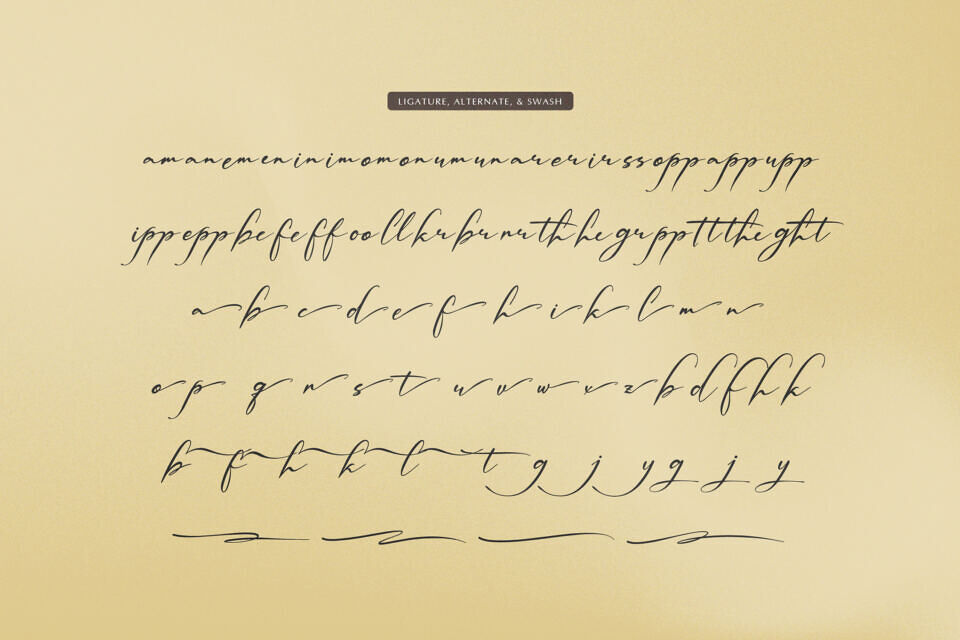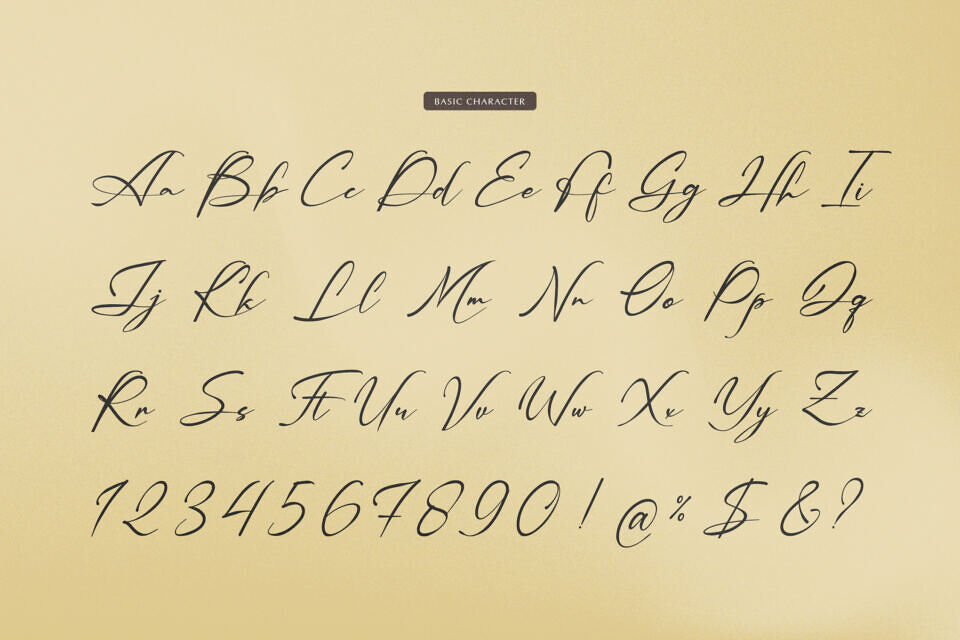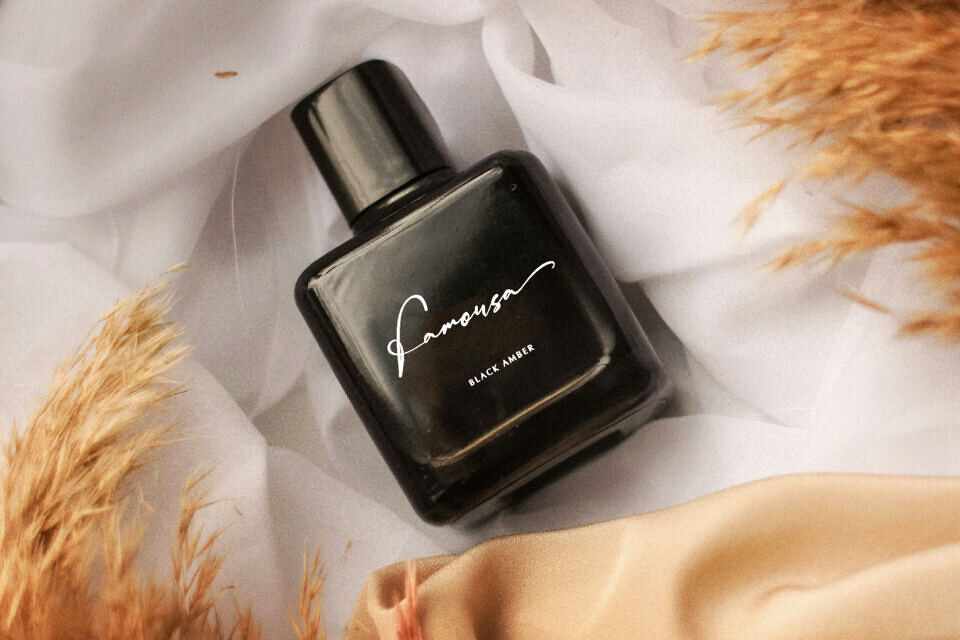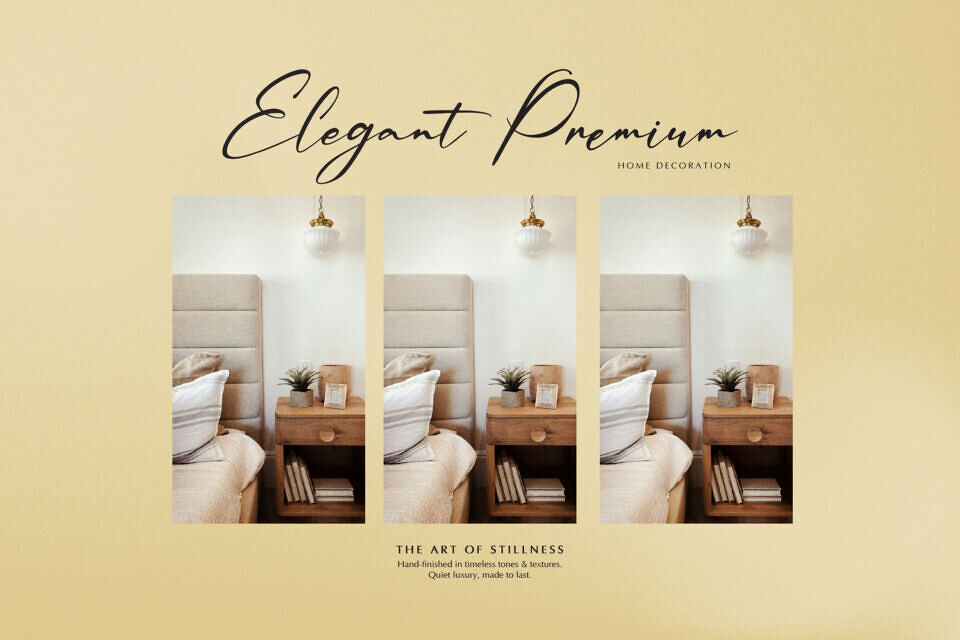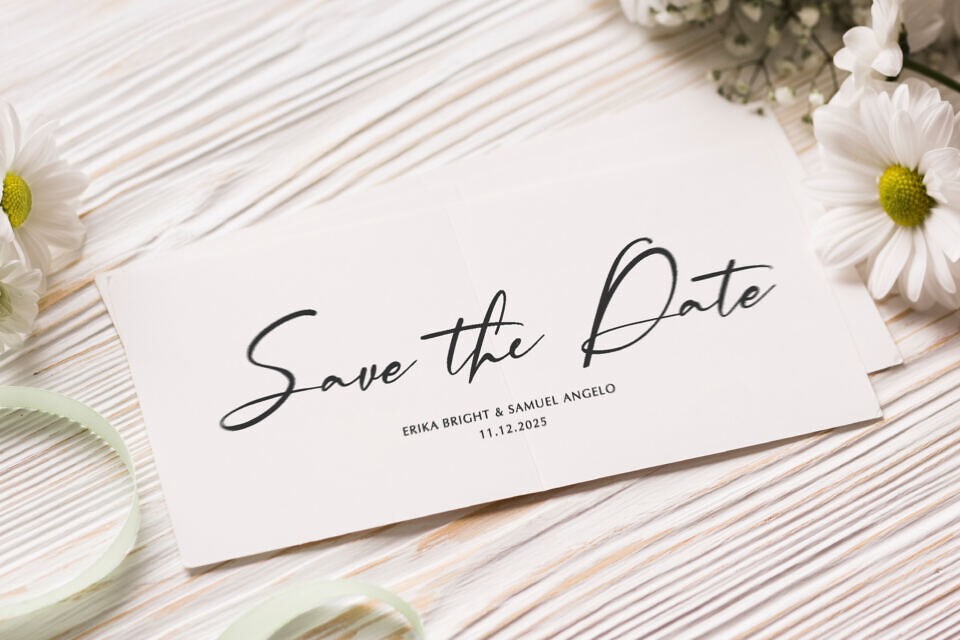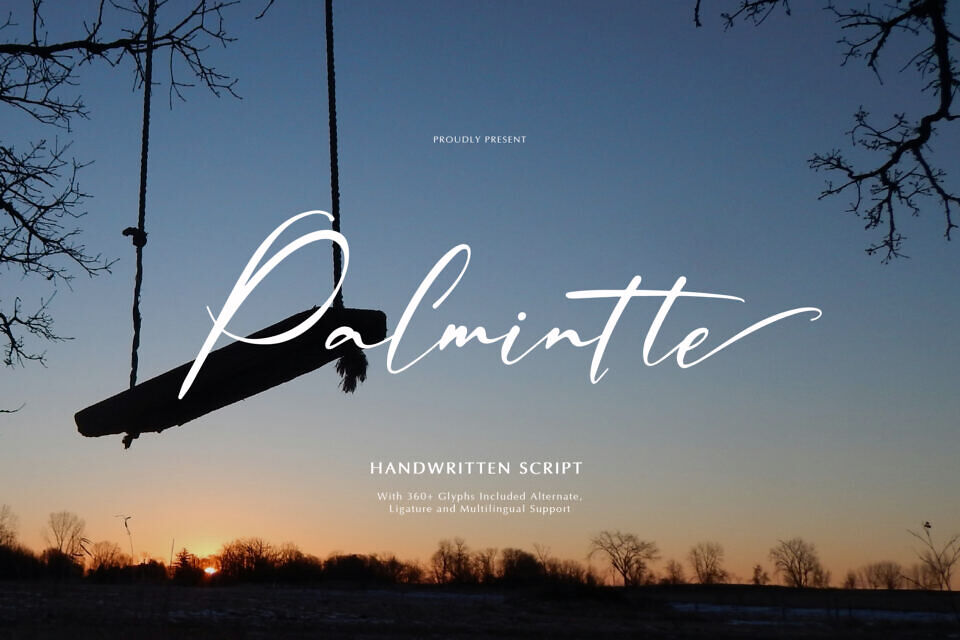
Palmintte Font
Palmintte is a Handwritten Script from Gracetypestudio, suitable for any projects such as: logos, branding projects, homeware designs, product packaging, mugs, quotes, posters, shopping bags, t-shirts, book covers, name card, invitation cards, greeting cards, label, photography, watermark, special events, and all your other lovely projects that need a Handwritten Script taste.